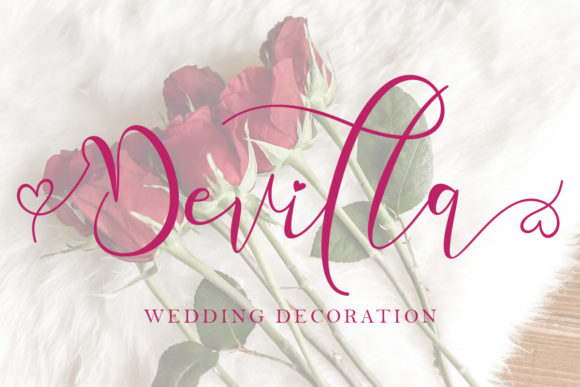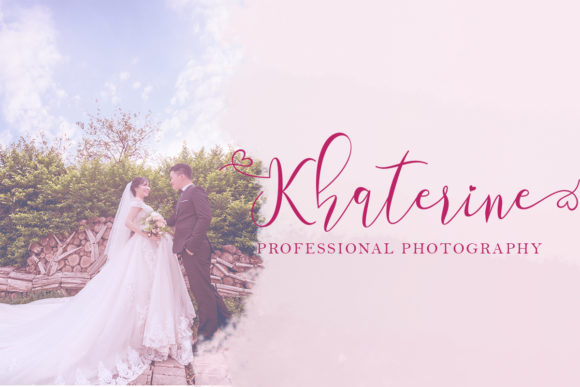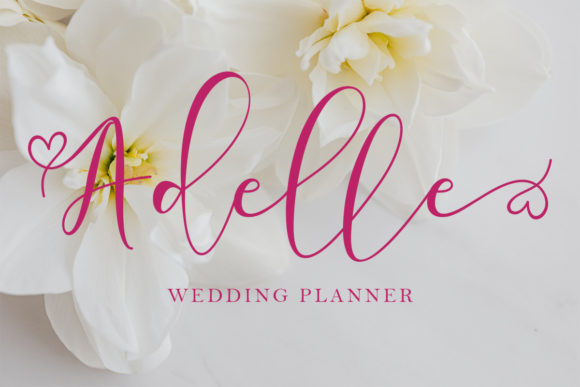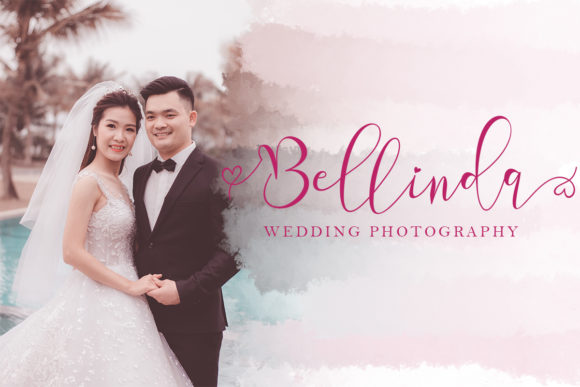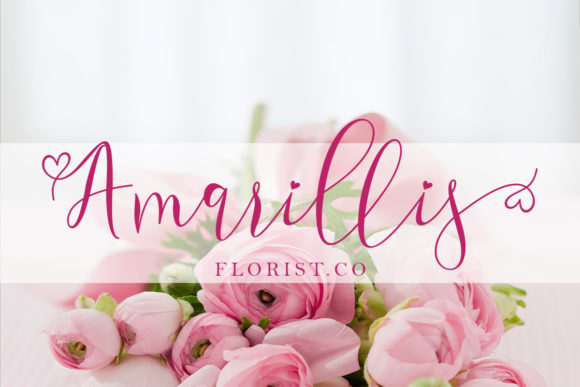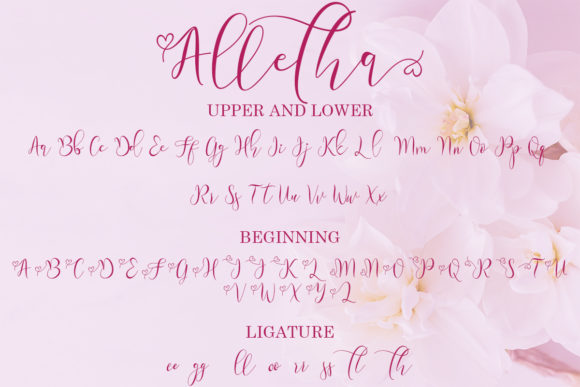
Unlocking the Beauty of Handwritten Design
As you sit in front of your computer, staring at a blank canvas, the creative wheels start turning. You envision a beautiful poster, a stunning logo, or a captivating card. But, you’re not sure where to begin. That’s where the perfect font comes in – a key element that can make or break the entire design. Enter the elegant and flowing Alletha Font, a delicate handwritten font that’s about to become your new best friend.
With its beautiful and well-balanced characters, the Alletha Font is a versatile choice that can elevate any design. Whether you’re a seasoned designer or a creative enthusiast, this font is sure to impress. Its varying baseline, smooth lines, gorgeous glyphs, and stunning alternates make it a valuable addition to any design arsenal.
Alletha Font Key Features
- Font Family: Alletha
- Unique Characteristics: Alletha is a modern, elegant script font with a flowing and connected feel, making it ideal for invitations, wedding stationery, and other formal events.
Alletha Font Review
Overall, I think the Alletha font is a great addition to any designer’s toolkit. Here are some of its strengths:
- ✨ Unique and elegant design: The Alletha font has a beautiful, flowing design that sets it apart from other fonts.
- ✨ Versatile: The font is suitable for a wide range of applications, from body text to headings and titles.
- ✨ High-quality: The font is well-crafted and looks great at various sizes and resolutions.
- ⚠️ Limited language support: The font may not be optimized for certain languages, which could be a problem for designers who need to work with non-Latin scripts.
- ⚠️ May not be suitable for very small text sizes: While the font looks great at larger sizes, it may become difficult to read at very small text sizes.
- ⚠️ No bold or italic variants: While the font is well-designed, it would be great to have bold and italic variants available for added versatility.
Overall, I would recommend the Alletha font to designers who are looking for a unique and elegant font for their projects. With a little caution and planning, it can be a great addition to any design toolkit.
Tips for Getting the Most Out of Alletha Font
Use the Alletha font for creative and artistic designs, such as posters, flyers, and brochures. Experiment with different font sizes, styles, and colors to add visual interest to your design.
The Alletha font is ideal for use in the following situations:
– Creative and artistic designs
– Fashion and beauty branding
– Luxury and high-end products
– Unique and eye-catching presentations
Q: Is the Alletha Font optimized for digital use?
Yes, the Alletha Font is designed with digital use in mind. It includes features such as hinting, kerning, and optical sizing to ensure optimal display on various screens and devices. This ensures a crisp and clear display of the font in digital applications.